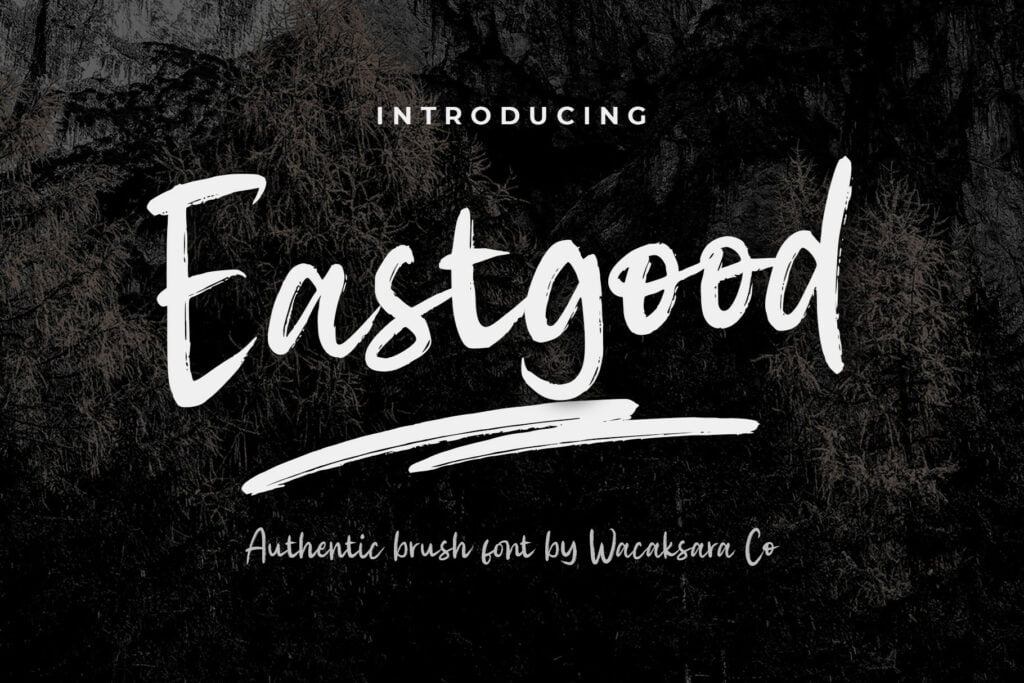
Eastgood Font
Eastgood is a cool, brush and friendly handwritten font. This adaptable font will look great on a variety of design ideas. It will add a fun and friendly touch to each of your projects!
Eastgood Modern Brush Font